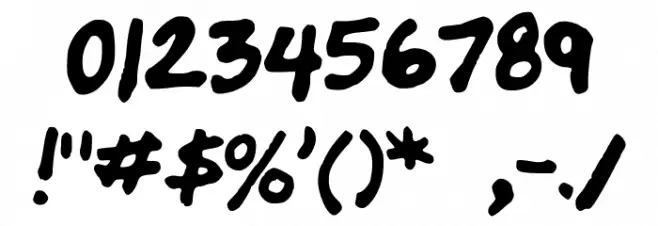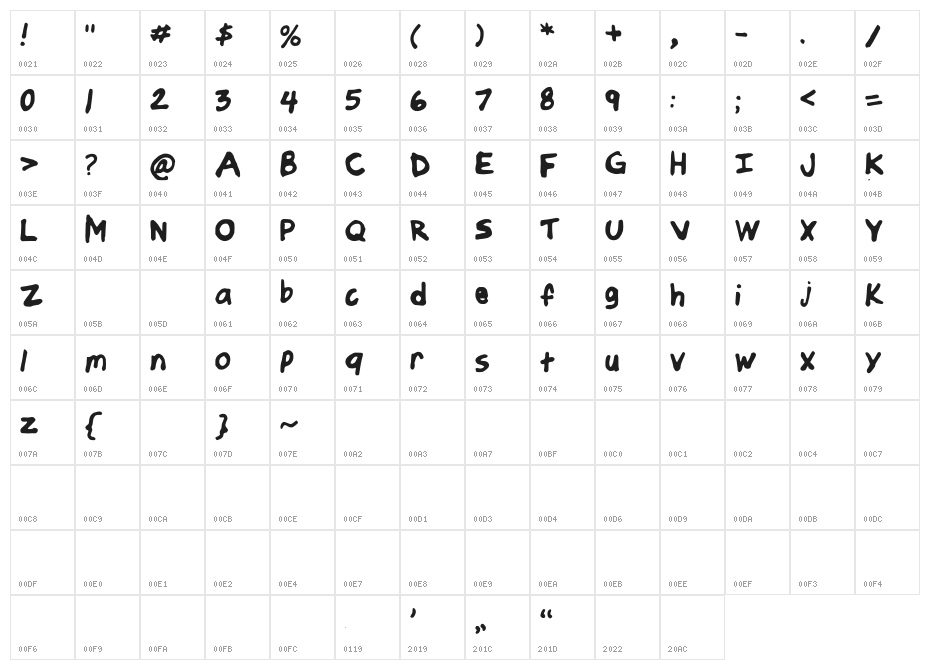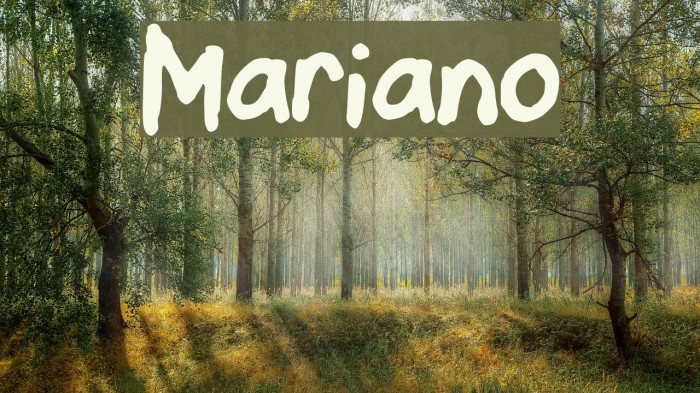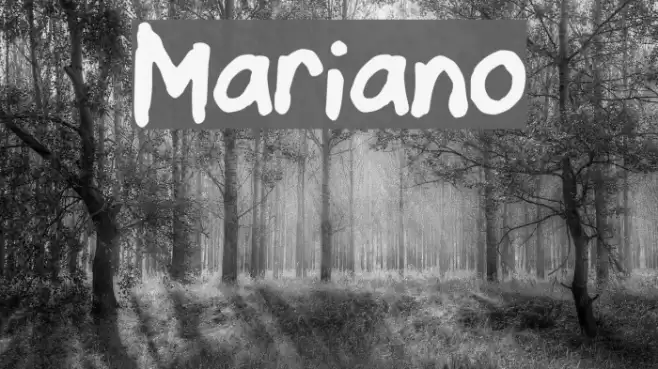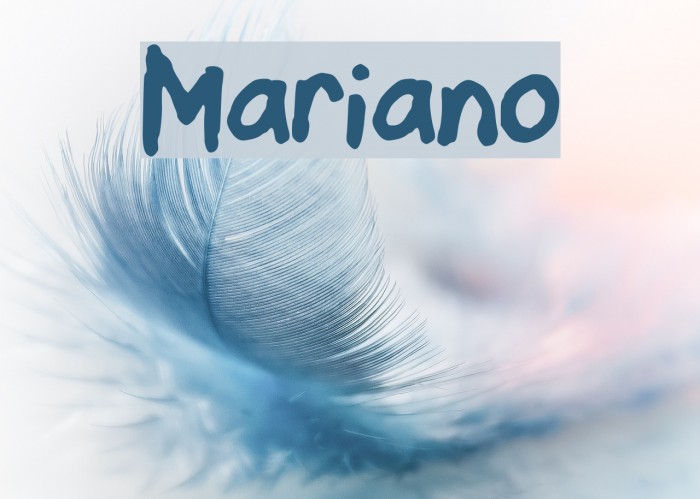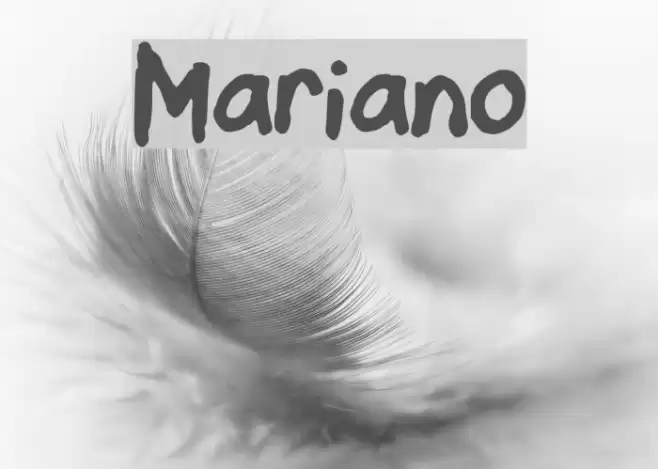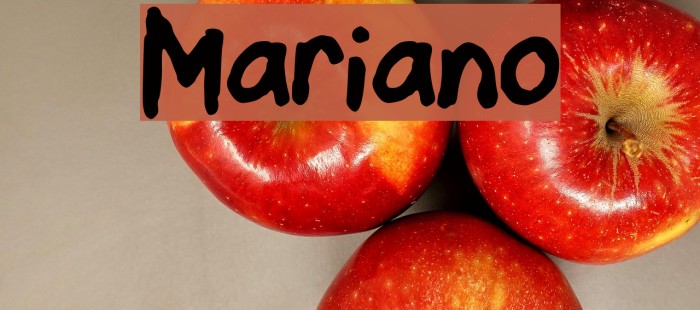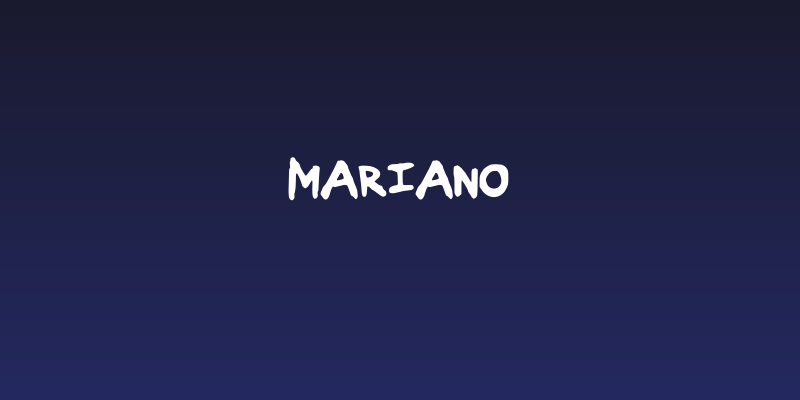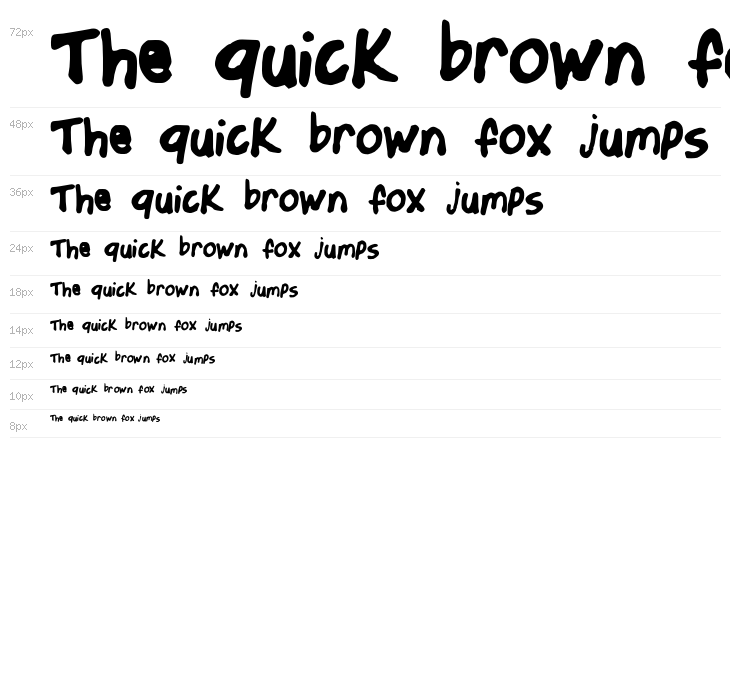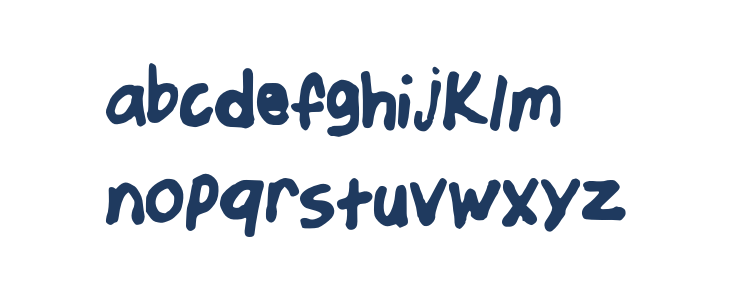
Mariano Font
Mariano Description
This font features a playful and bold handwritten style, characterized by its thick, rounded strokes and slightly irregular letterforms. The uppercase and lowercase letters maintain a consistent weight, giving the font a cohesive appearance. The numbers and special characters follow the same design principles, ensuring uniformity across all glyphs. The font's informal and friendly aesthetic makes it suitable for projects that require a personal touch. Its boldness ensures readability, while the rounded edges add a sense of warmth and approachability.
| Overall Style | Playful, Casual |
| Proposed Projects | Ideal for children's books, greeting cards, playful branding, and casual invitations. |